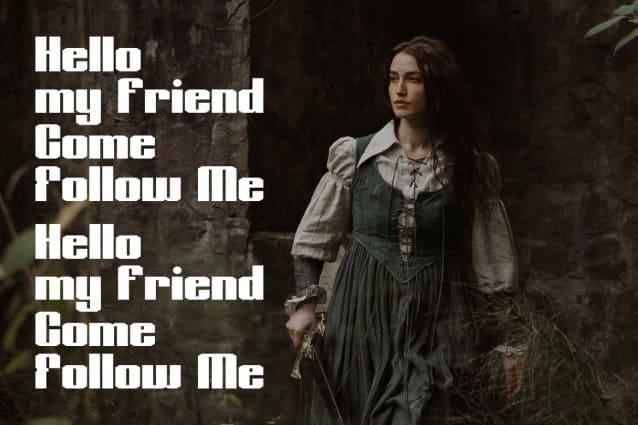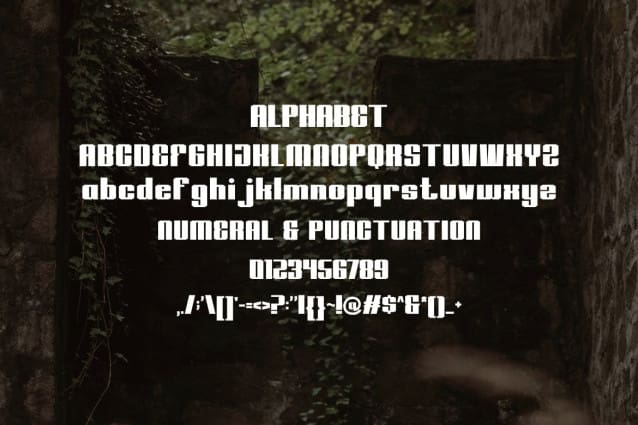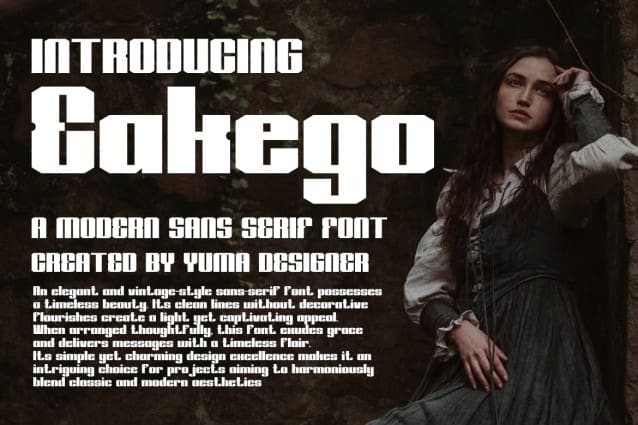
Eakego Font
Eakego Font, is a modern and simple font ideal for displaying titles, logos, branding, magazines, product packaging and invitations. Eakego’s clean lines and gentle curves give any project an extra touch of class